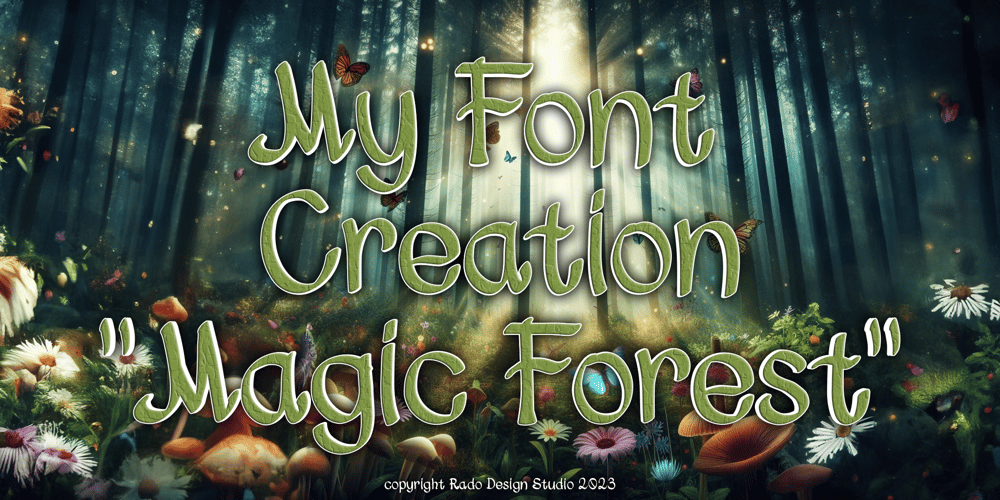
Magic Forest Font Family was designed by Eugene Radoselsky and published by Radoselsky. Magic Forest contains 1 styles and family package options. This font is designed by me for the use in my friend´s invitation for her childrens birthday party. I hope you can use it in yours.